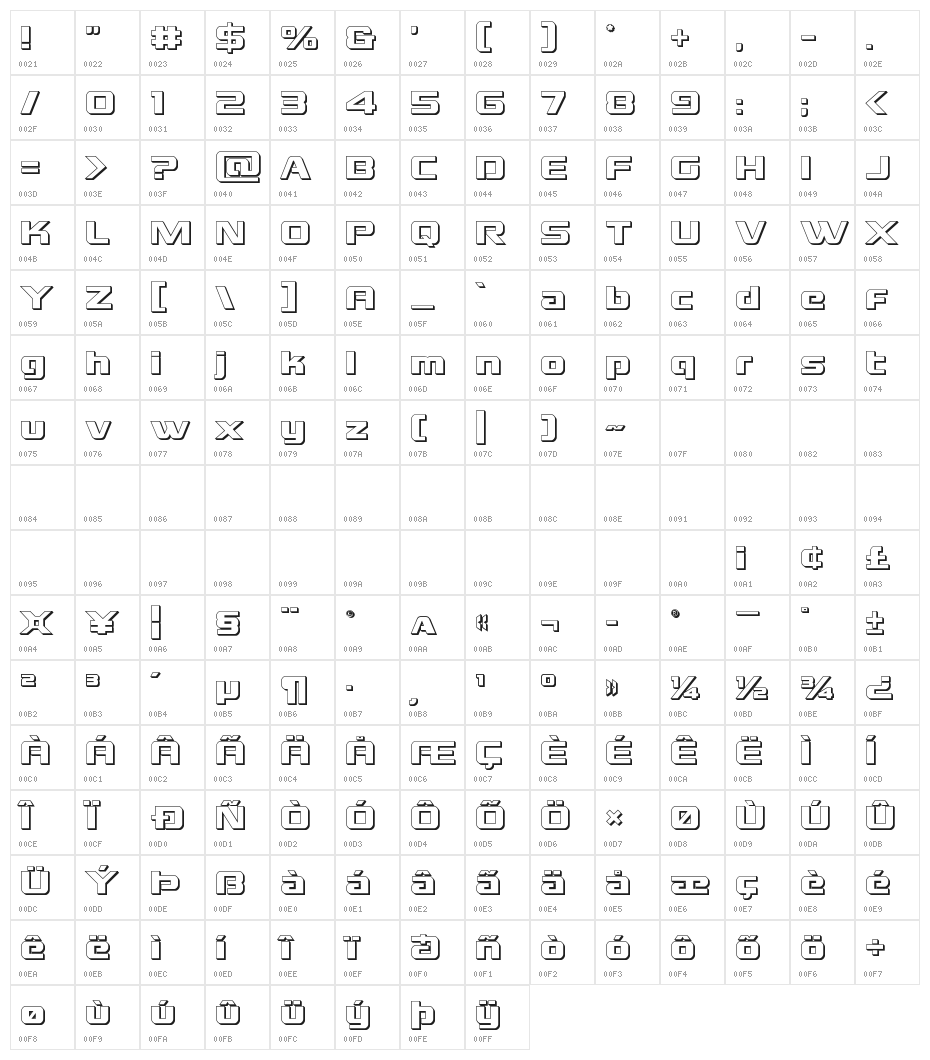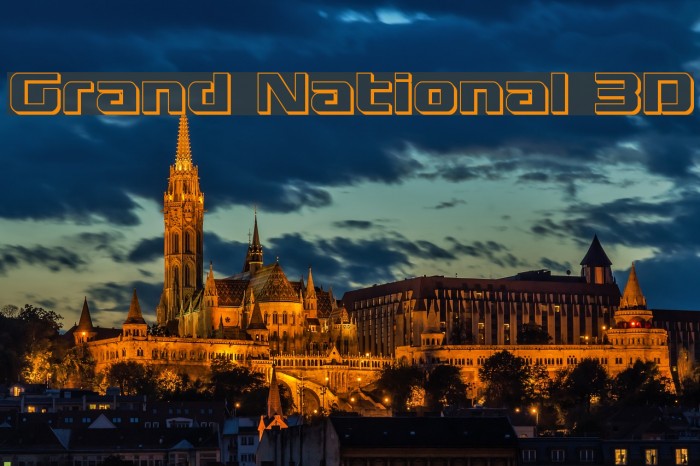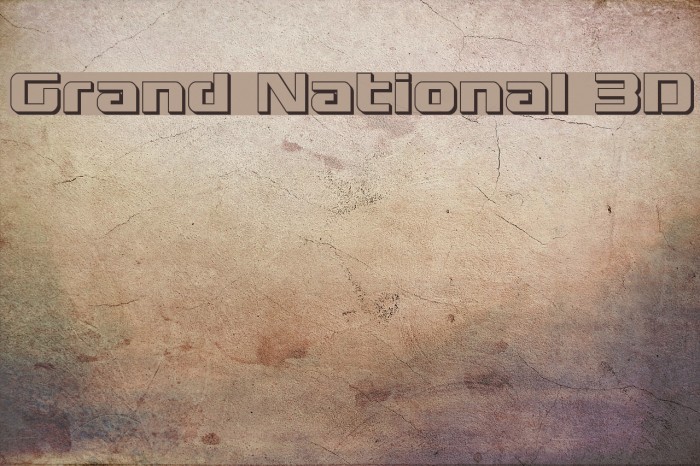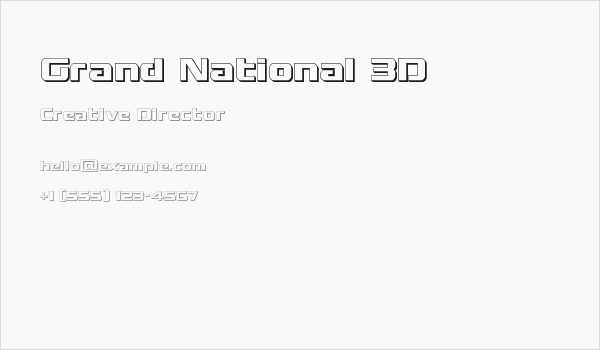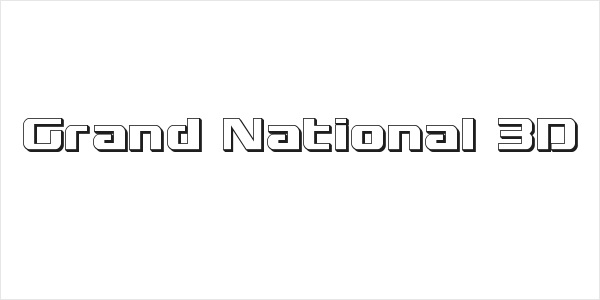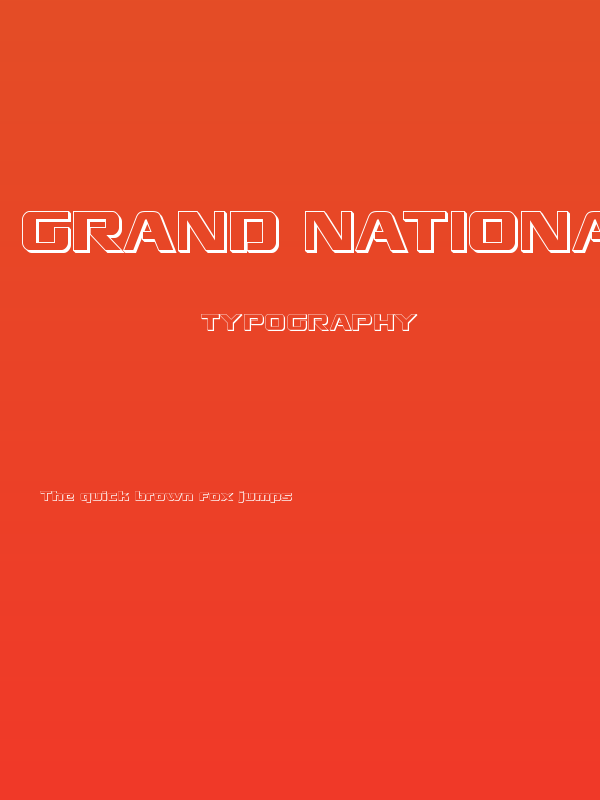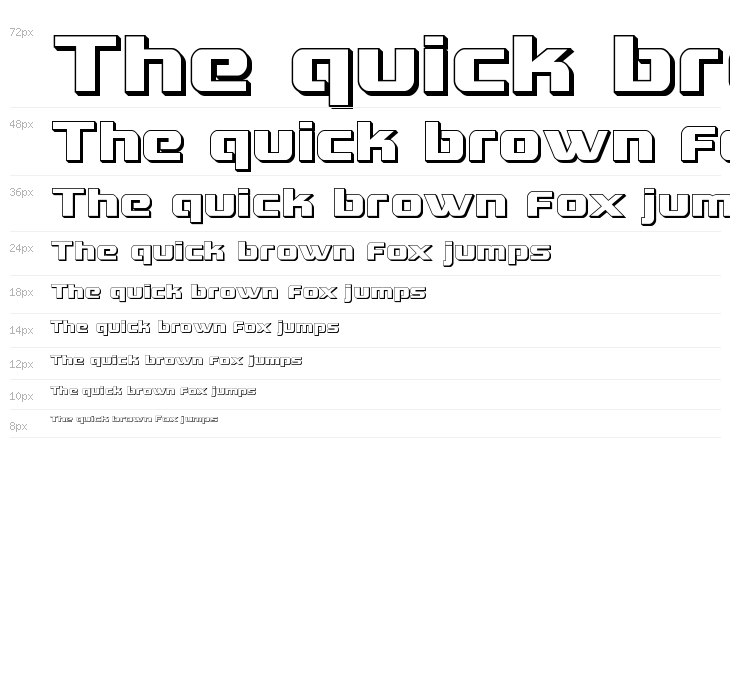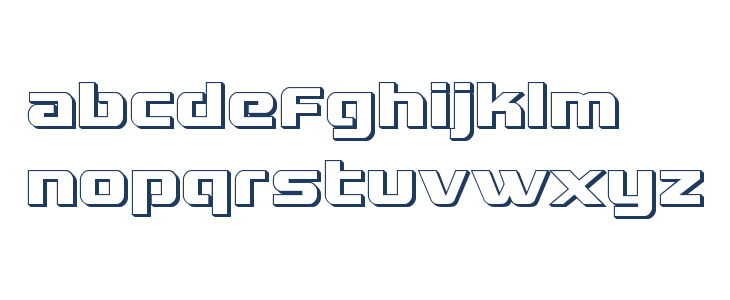
Grand National 3D Font
Grand National 3D Description
This font features a bold, three-dimensional outline style that gives each character a striking and impactful appearance. The uppercase and lowercase letters are designed with a consistent geometric structure, providing a modern and futuristic look. The numbers and special characters maintain this cohesive design, ensuring versatility across various uses. The font's 3D effect is achieved through a clever use of shadowing and line work, making it ideal for attention-grabbing headlines and logos. Its clean lines and structured form make it suitable for digital and print media, where a bold statement is desired.
| Proposed Projects | Ideal for branding, advertising, posters, and digital media where a bold, modern look is required. |